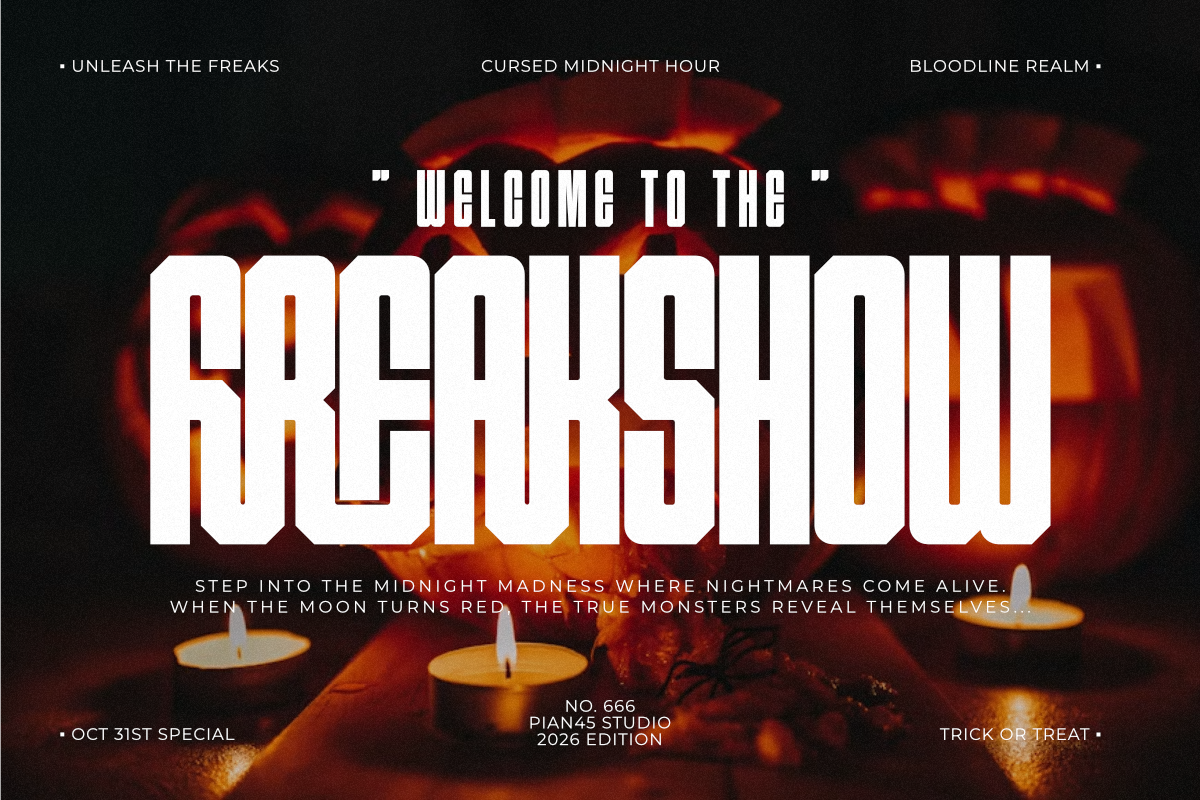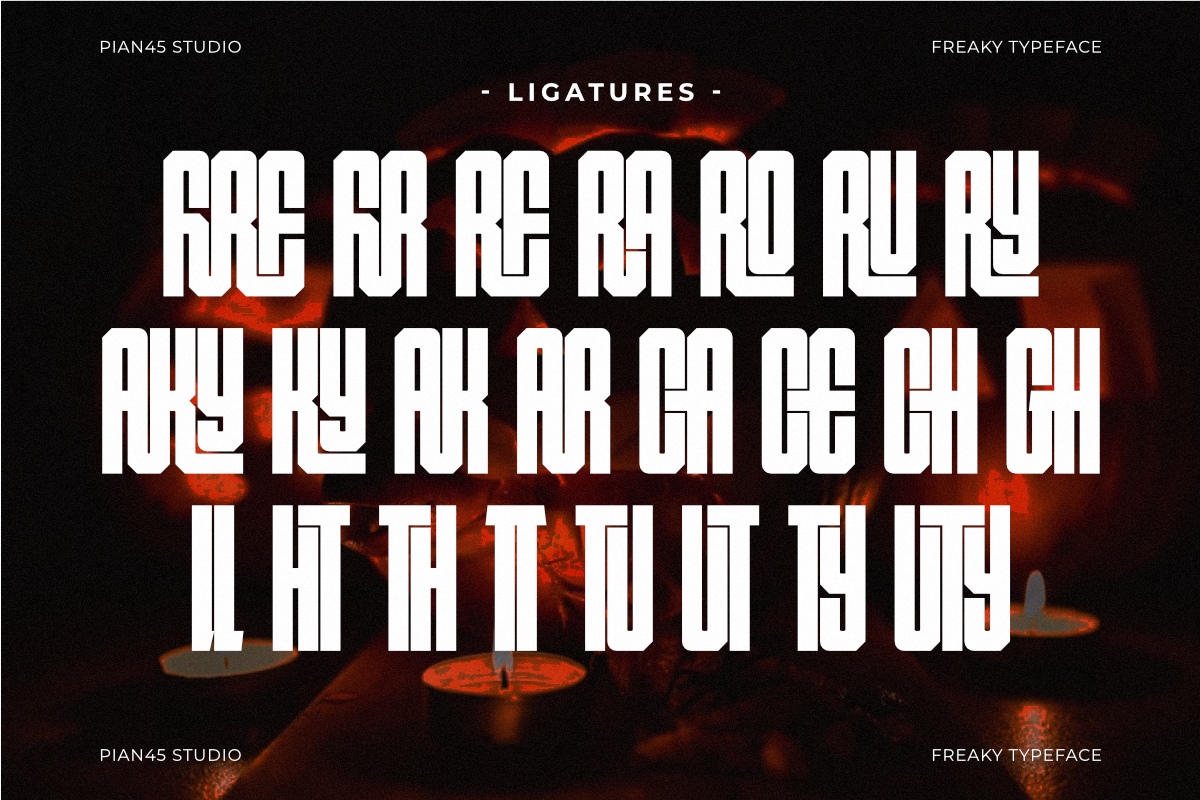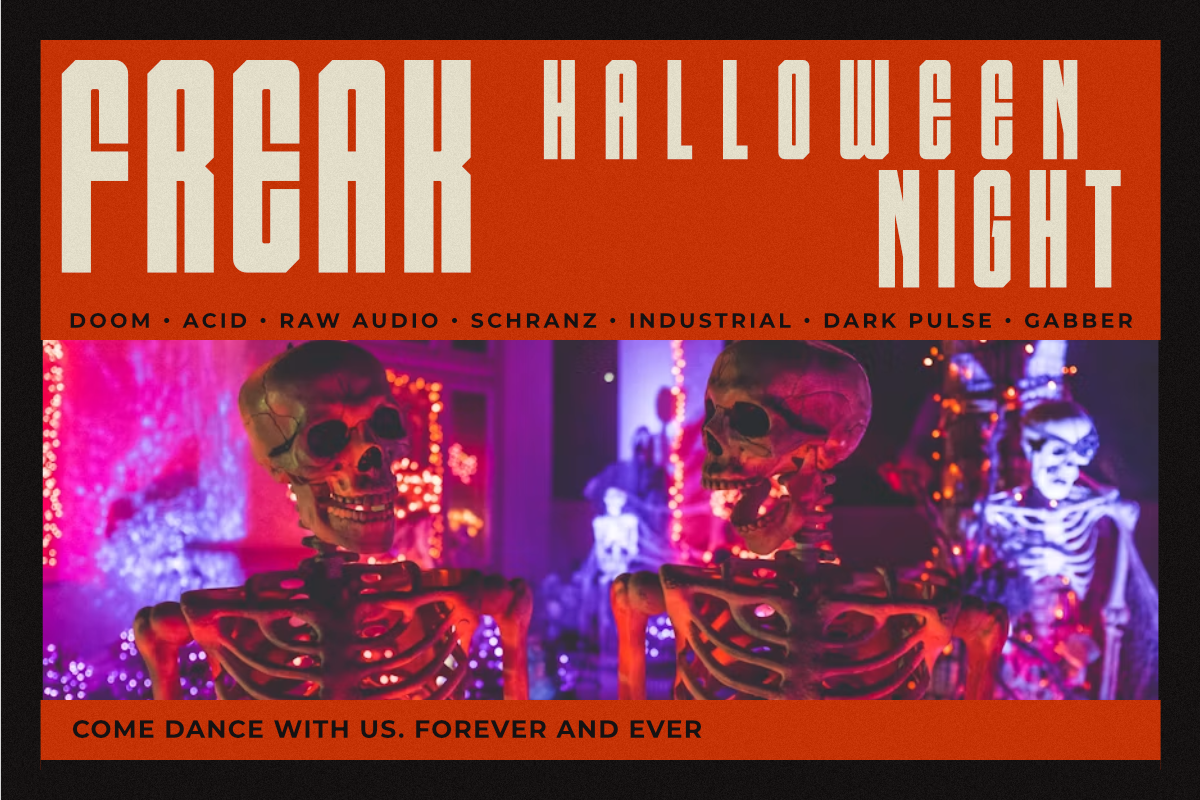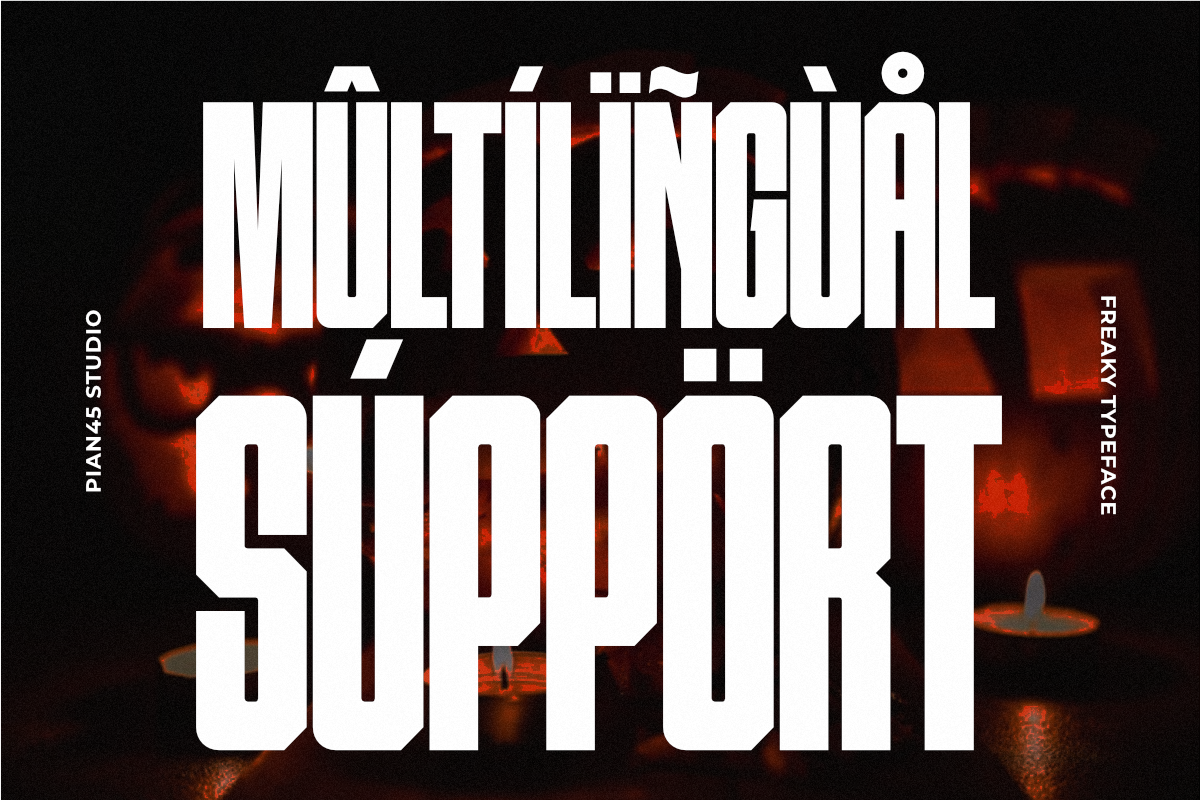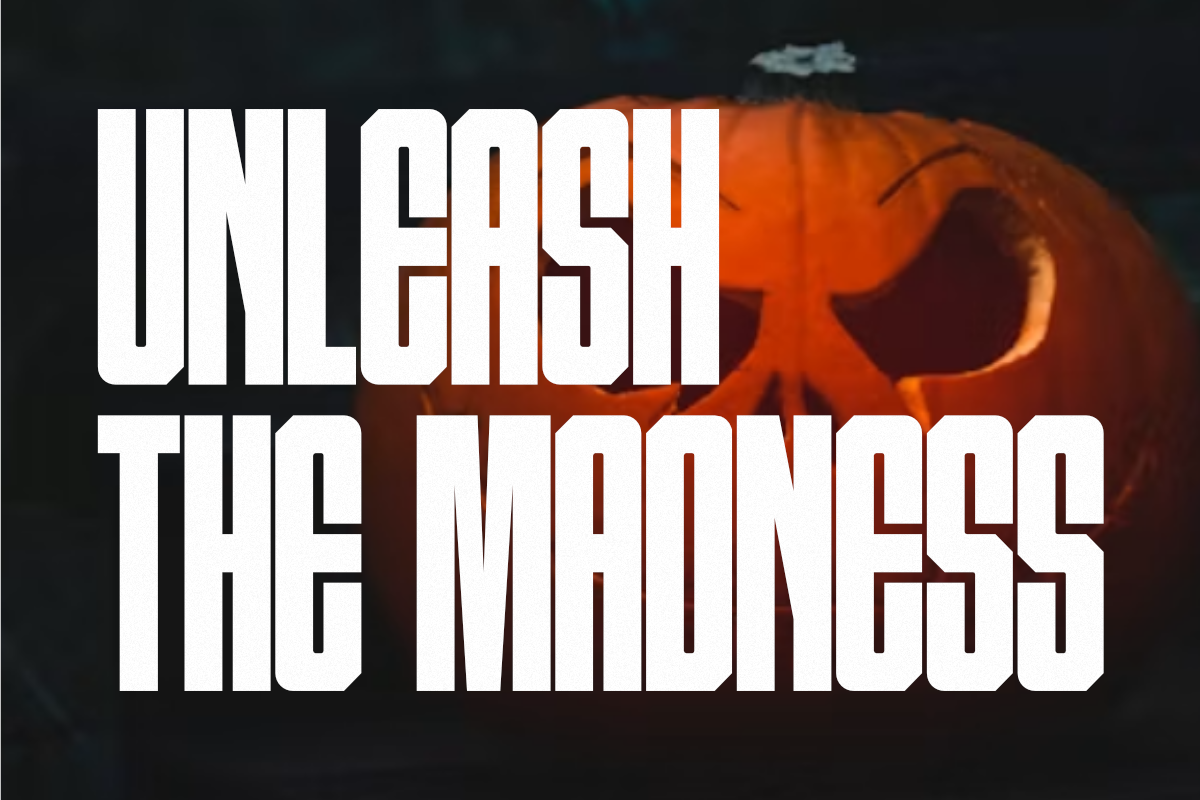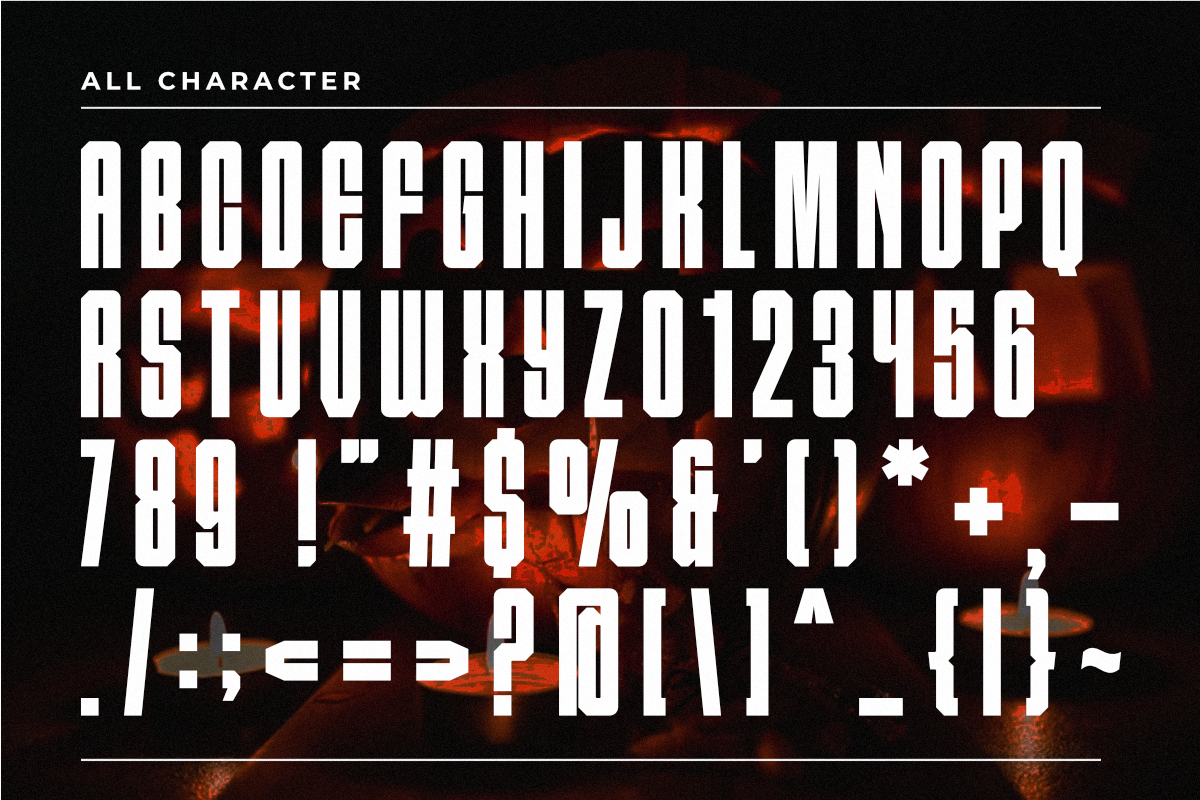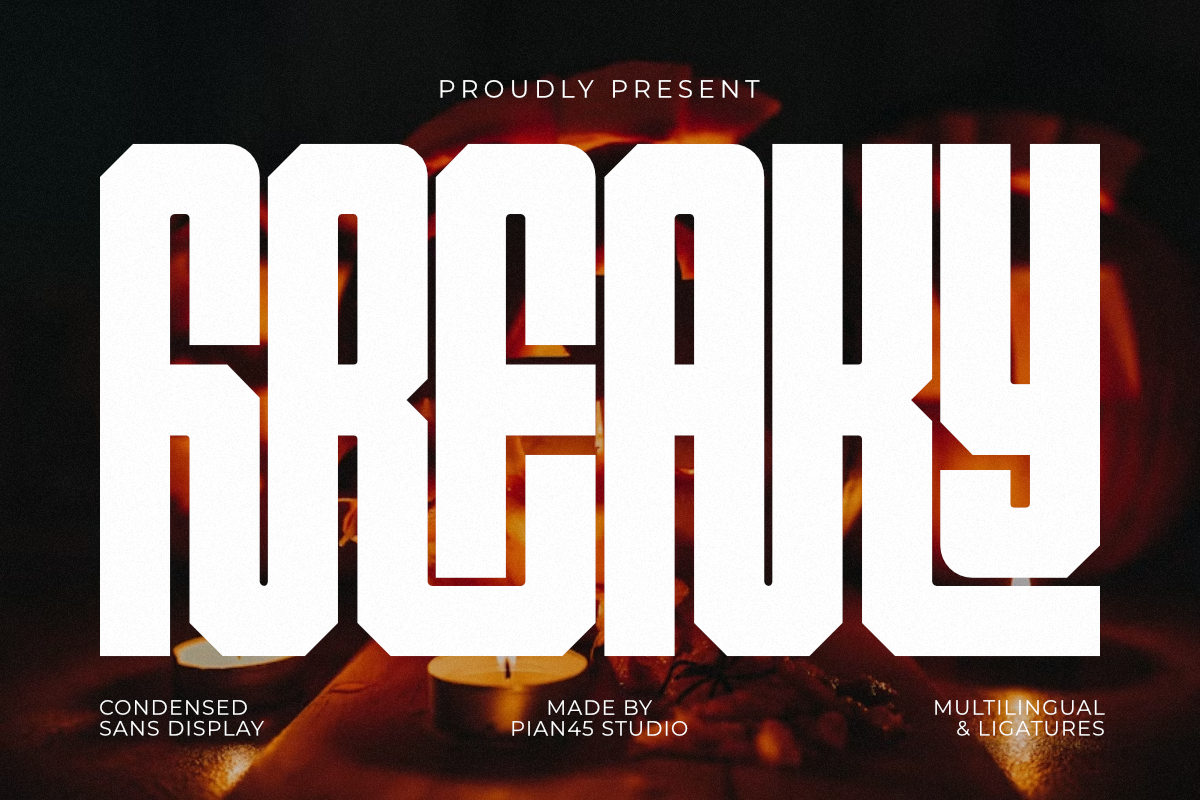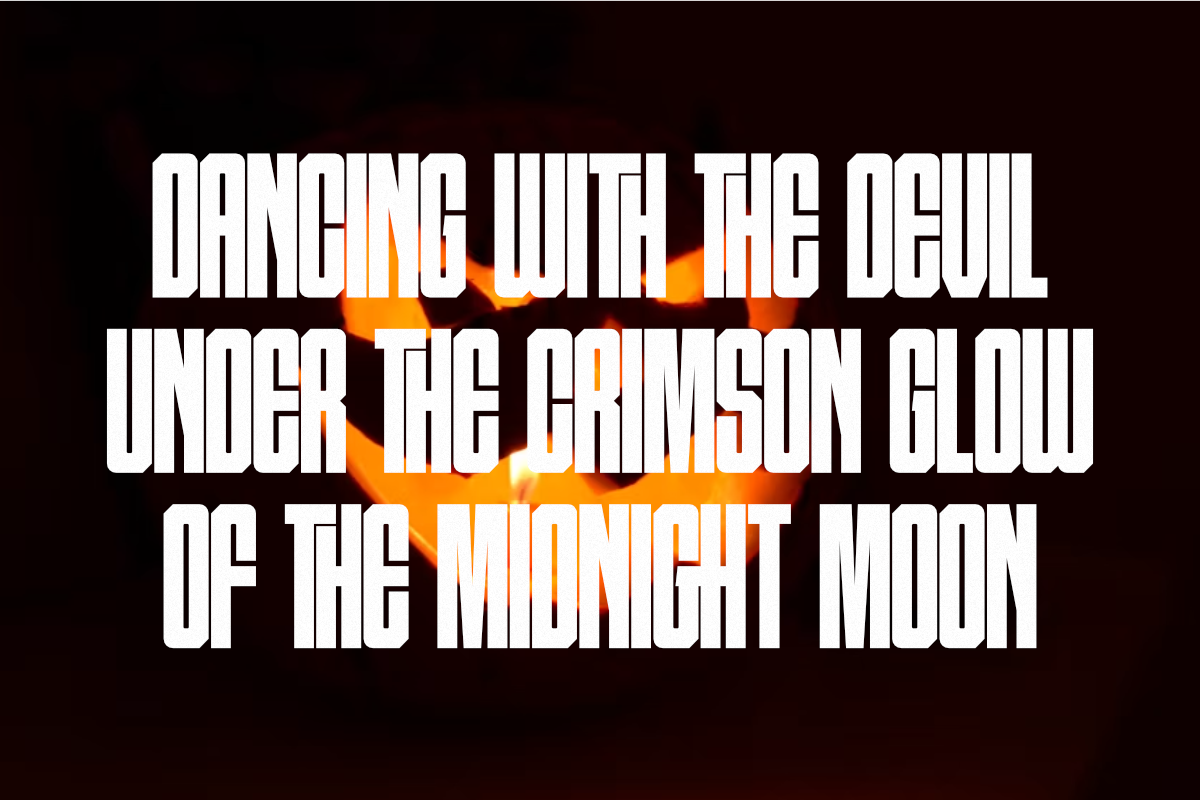
Freaky - Halloween Sans Display Font
Freaky is an eerie, high-impact Condensed Sans Display font engineered to bring a weird, spooky twist to modern display typography. Designed with heavy geometric block structures, tall narrow proportions, custom ligatures, and a space-saving condensed typeface layout with full multilingual support, this all-caps font is built for Halloween branding, freakshow circus posters, horror movie titles, thriller book covers, and edgy streetwear apparel. Its bold visual weight and unique letterforms deliver maximum impact, making it the ultimate choice for commanding headlines, party invitations, merchandise designs, and spooky digital marketing banners.